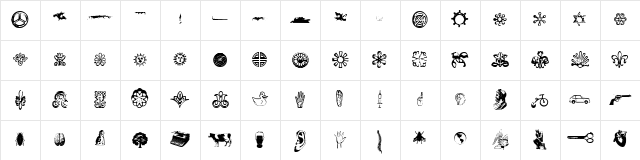
Recife Dings Dingbats Free Font
Recife Dings Dingbats
Style: Dingbats
Version: Simbols, Pictures, Distress, Dirty....
Design Context for Recife Dings
Recife Dings is a composed and adaptable typeface that performs quietly and consistently across a wide range of design contexts.